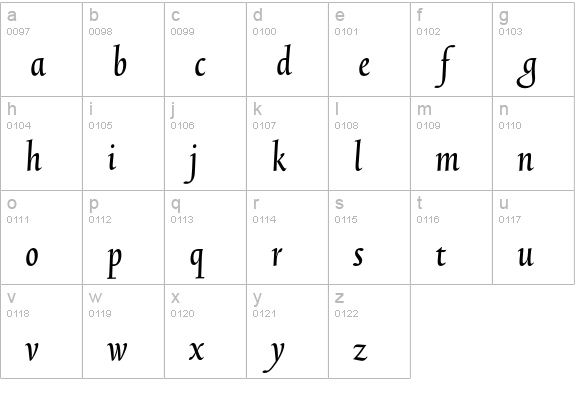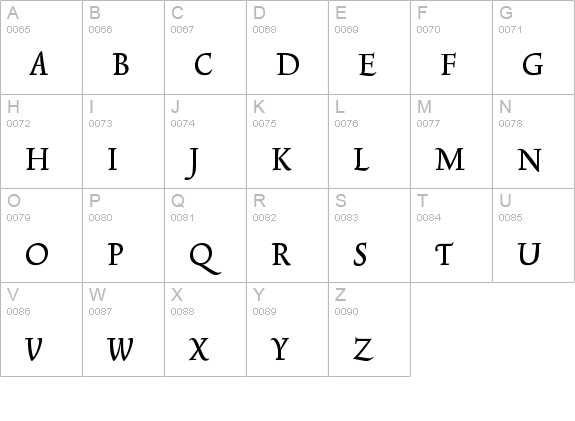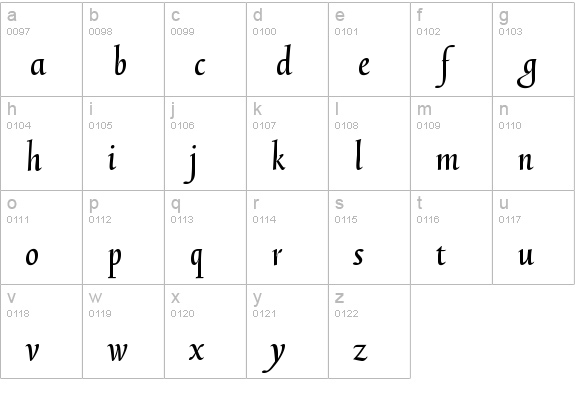
TriniteNo3-MediumItalic is a stunning font that effortlessly combines elegance and sophistication. With its sleek and modern design, this font is perfect for adding a touch of class to any project. The medium weight adds just the right amount of boldness, making it versatile and suitable for a wide range of applications. What sets TriniteNo3-MediumItalic apart is not just its visual appeal, but also its accessibility. This font is freely available to download at FontsMarket.com, allowing designers, creatives, and enthusiasts to easily access and incorporate it into their work. This means that you can now elevate your designs without any constraints or limitations. Whether you are working on a logo, branding materials, websites, or even print designs, TriniteNo3-MediumItalic will effortlessly enhance your project. Its italic style adds a sense of movement and fluidity, making it particularly ideal for projects that require a dynamic and captivating feel. The characters in TriniteNo3-MediumItalic are meticulously crafted, ensuring legibility and clarity even at smaller sizes. The smooth curves and balanced proportions create a harmonious and visually pleasing result, guaranteeing that your message will be communicated effectively. With TriniteNo3-MediumItalic, you have the freedom to express your creativity and bring your vision to life. So why wait? Download this incredible font for free at FontsMarket.com and unlock endless possibilities for your designs.